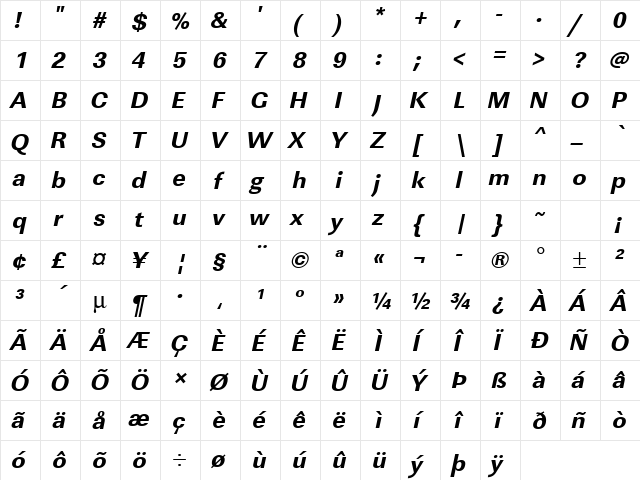
URWLinearTExtBol Oblique Font Preview
URWLinearTExtBol Oblique
Design Context for URWLinearTExtBol Typeface
URWLinearTExtBol takes a measured approach to typography — its balanced proportions and neutral character make it a reliable workhorse for both digital and print work. The slanted form adds forward momentum and visual energy.